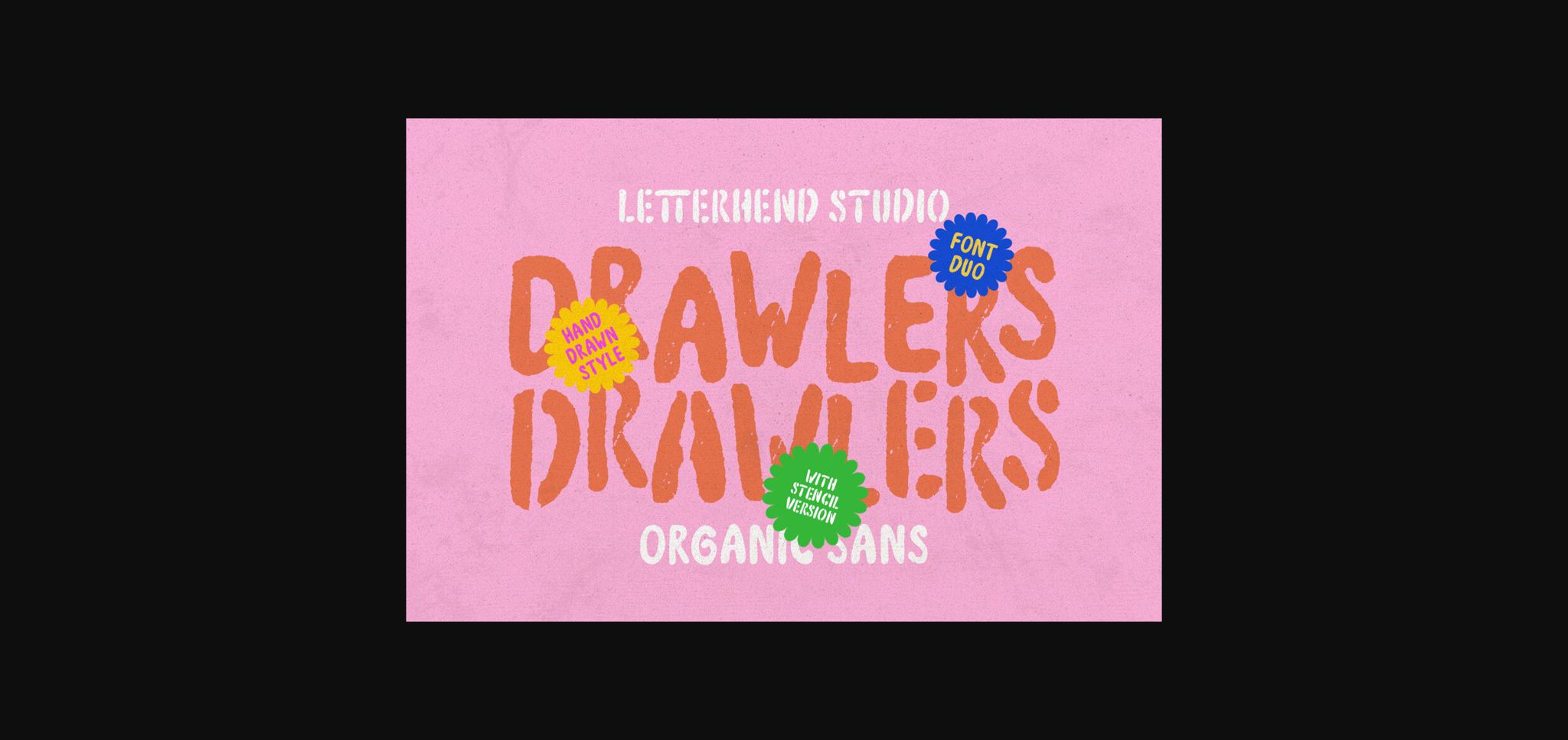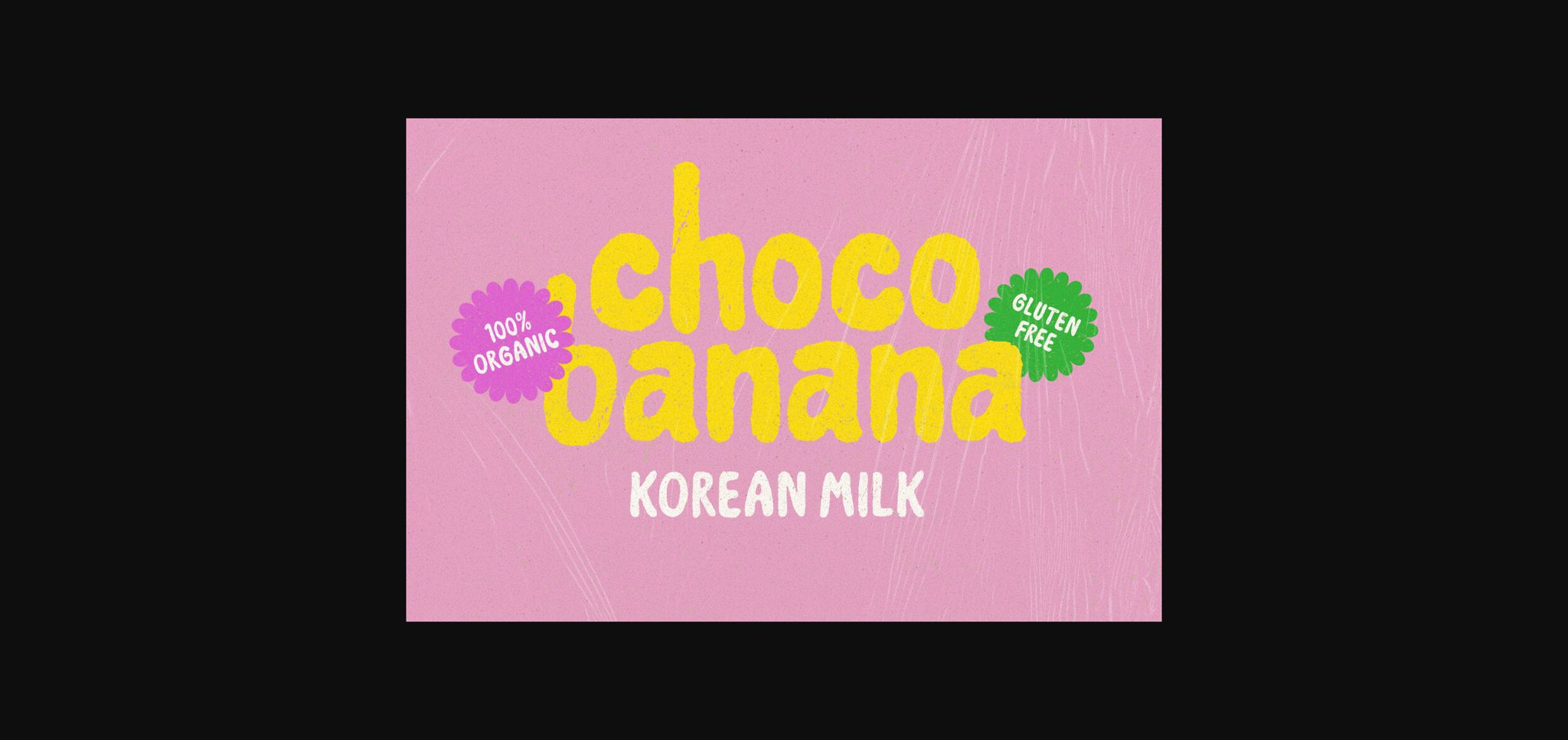
About Drawlers Font
Drawlers is an organic sans with stencil version that effortlessly infuses your designs with a touch of casual and a dash of classic. Its unique type- makes it the perfect choice for any project, especially in logo, and other various formal forms such as invitations, labels, logos, magazines, books, greeting/wedding cards, packaging, fashion, makeup, stationery, novels, labels or any type of advertising purpose.